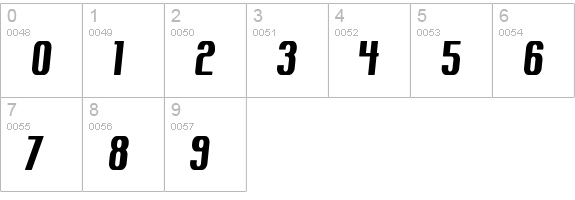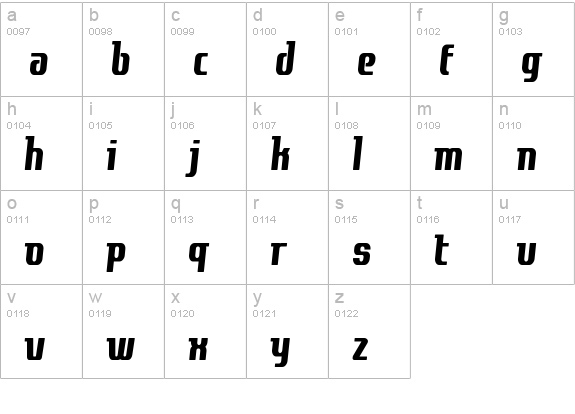
Contact Bold is a strong, high-contrast variant in the Contact typeface family \xE2\x80\x94 well suited to headlines, attention-grabbing titles, and strong calls-to-action.
Contact Bold is a modern and sleek font that exudes confidence and sophistication. Its bold and clean lines make it perfect for making a statement in any design project. Whether you're creating a bold headline or adding a touch of elegance to your branding, Contact Bold is sure to stand out. The best part? Contact Bold is completely free to download at FontsMarket.com. This means you can elevate your designs without spending a dime. So why wait? Download Contact Bold today and take your projects to the next level with this stylish and versatile font.